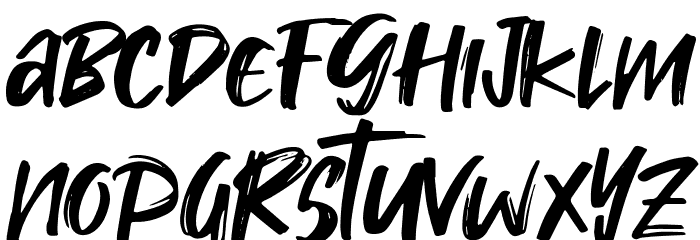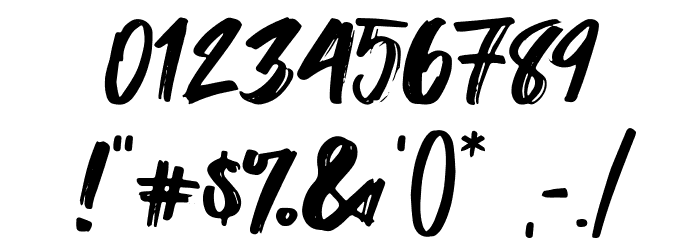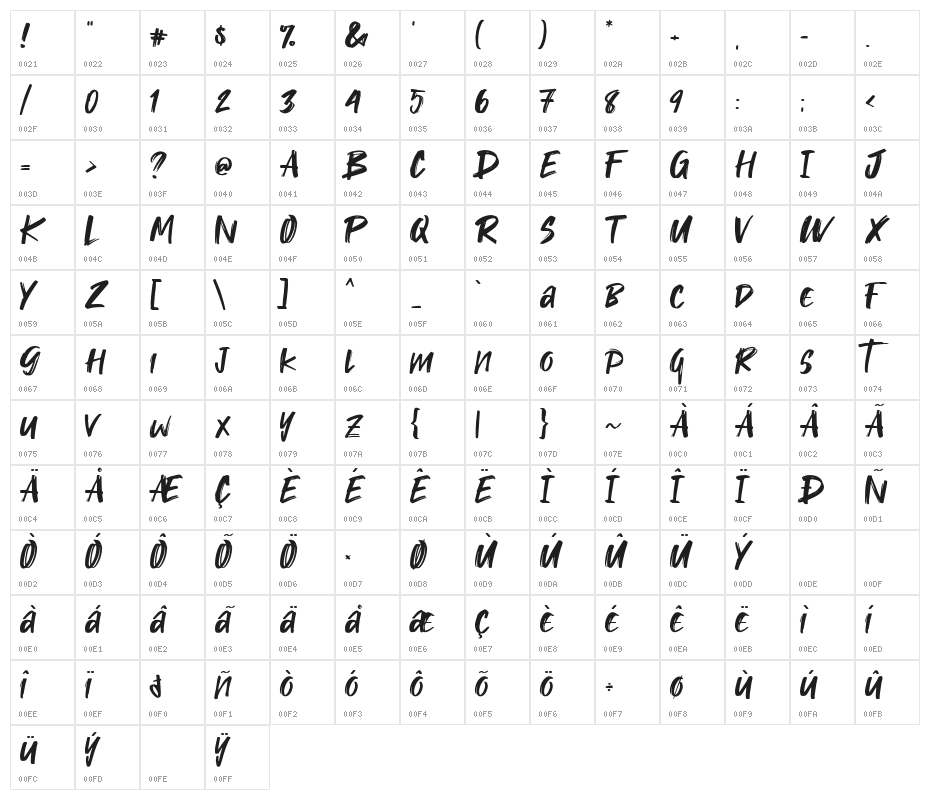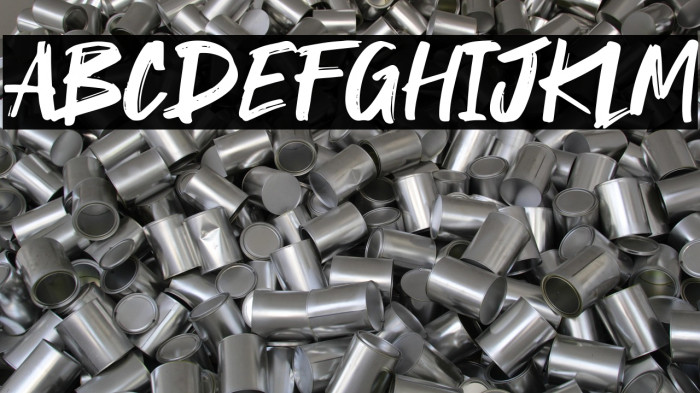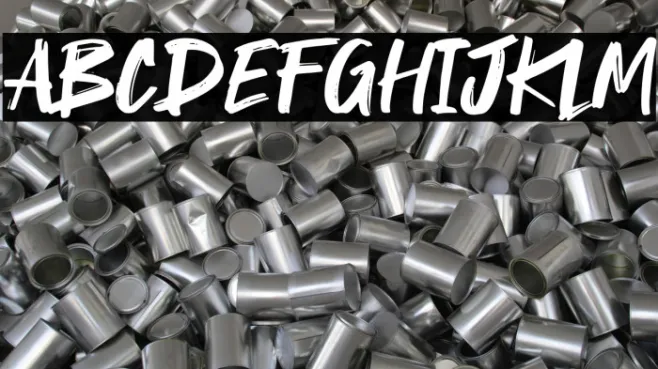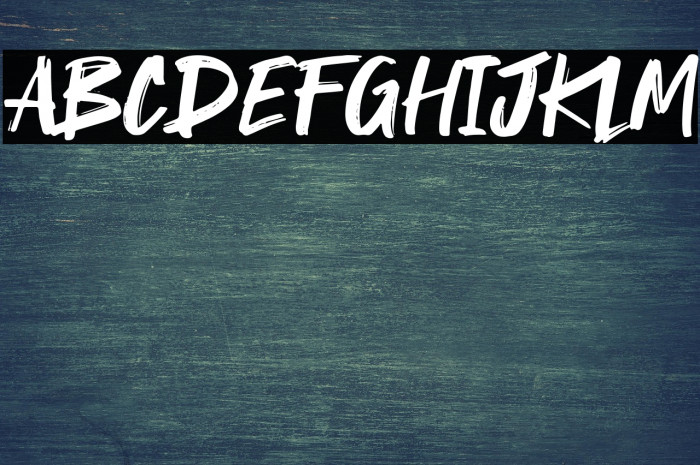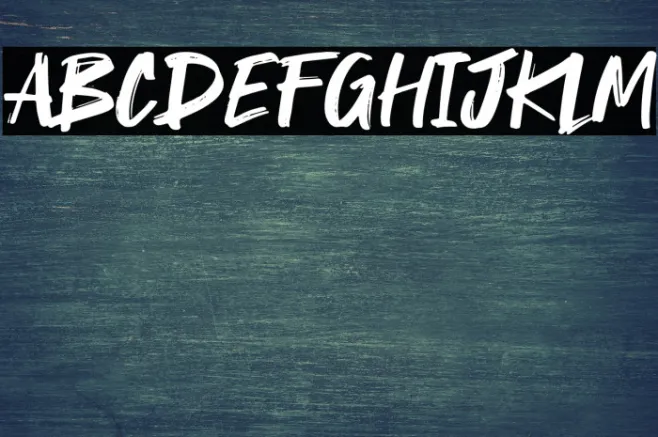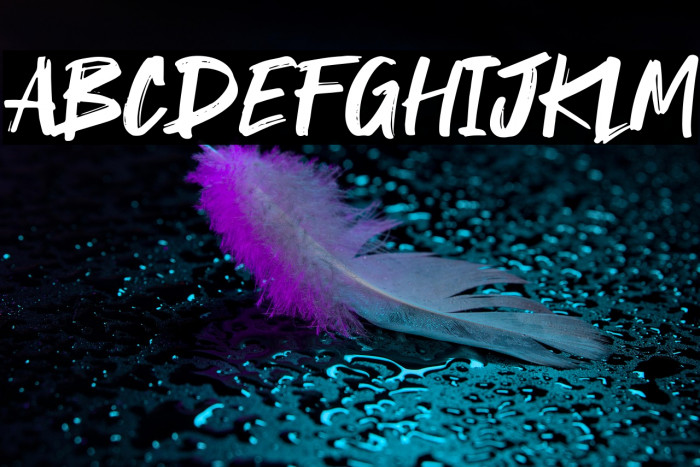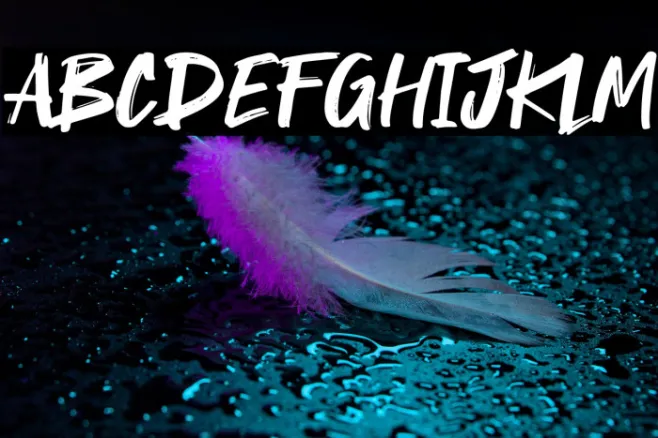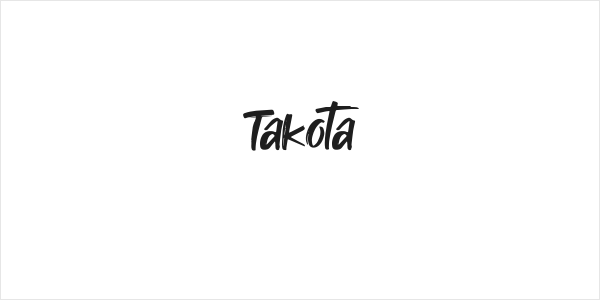
Takota Font
This font exudes a bold, energetic, and expressive style, characterized by its brush-like strokes and dynamic flow. The letters are crafted with a sense of movement, giving them a lively and informal appearance. The uppercase and lowercase letters maintain a consistent style, with varying stroke widths that add to the font's vibrant personality. The numbers and special characters are equally expressive, fitting seamlessly with the overall aesthetic. This font is perfect for projects that require a touch of creativity and flair, making it ideal for artistic and modern designs.
A bold, brush-style font with dynamic and expressive strokes.
- Font: Takota
- Proposed Projects: Ideal for posters, logos, branding, and creative design projects.